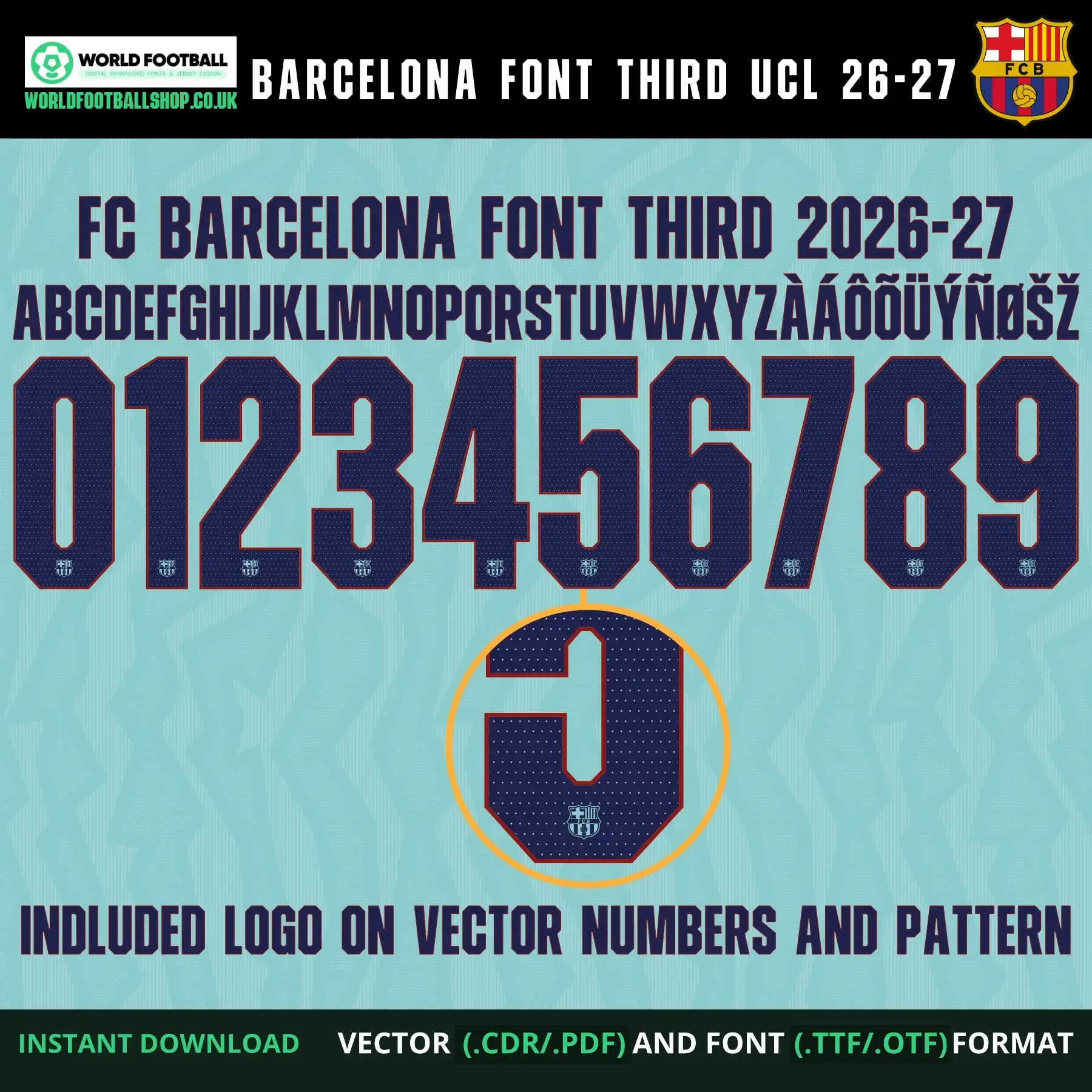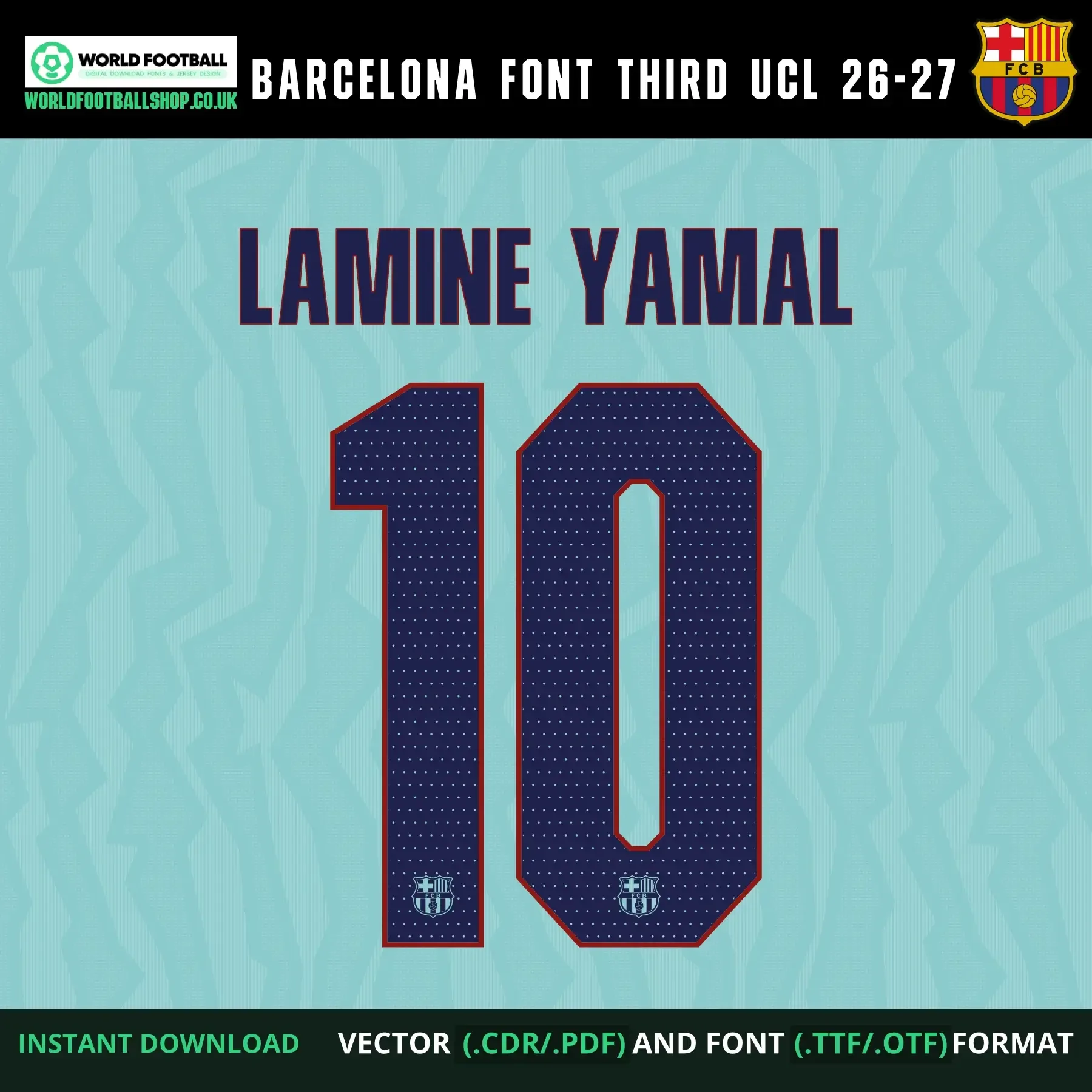
FC Barcelona Font Third UCL 2026-27, inspired by the style of Barcelona's third kit lettering for the Champions League. Includes TTF and OTF font files, a full vector pack (AI, CDR, EPS, PDF, SVG) with the complete AβZ alphabet and numbers 0β9, plus a bonus set of individually separated numbers 0β9 in PNG, SVG and PDF. Instant digital download - no physical product is shipped.
FC Barcelona Font Third UCL 2026-27 - Jersey Typeface
This football font set takes inspiration from the bold lettering seen on Barcelona's third kit for the 2026-27 Champions League season. Each character combines a navy fill with a red outline and a fine white dot-pattern texture, set against a teal/mint background with a subtle darker pattern - a distinctive third-kit colourway, different from BarΓ§a's usual home or away identity.
The full character set - AβZ alphabet and numbers 0β9, with the Barcelona crest embedded at the base of every letter and number - is supplied as both desktop font files (TTF/OTF) and a complete vector pack (AI, CDR, EPS, PDF, SVG), so it works whether you're setting text quickly in a design app or need clean, editable outlines for cutting and printing. As a bonus, the numbers 0β9 are also included individually separated, ready to use, in PNG, SVG and PDF - ideal for Cricut, Silhouette, or any design app without extra editing. The preview layout shows the full character set alongside a sample name and number combination - LAMINE YAMAL 10 - to demonstrate how the font looks applied.
- Accented characters: Γ, Γ, Γ, Γ, Γ, Ε , Ε½
- Distinctive navy-on-teal third-kit styling with fine dot texture, different from standard home/away fonts
- Crest detail embedded on every character for a cohesive, kit-inspired look